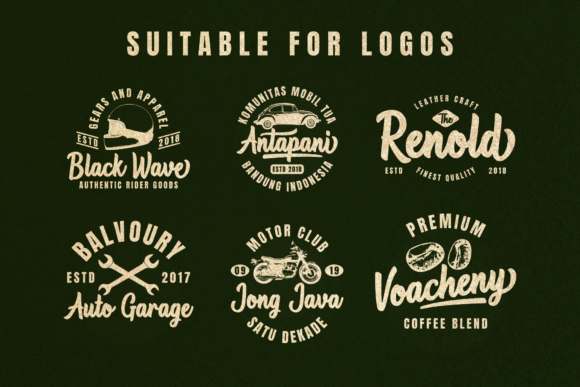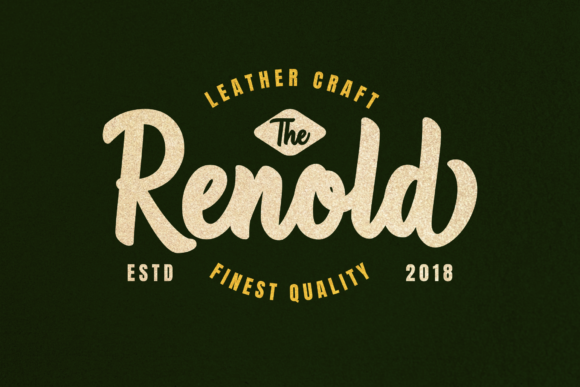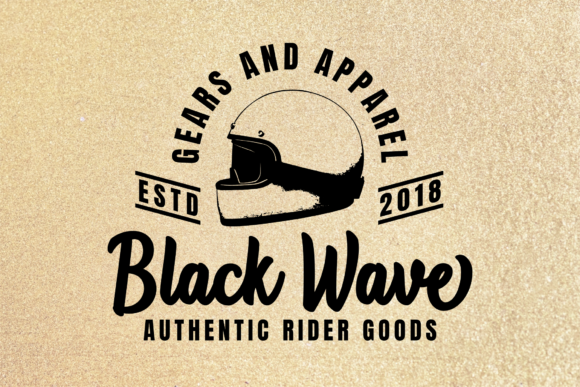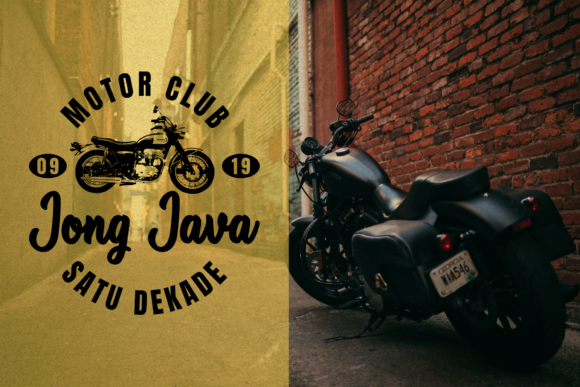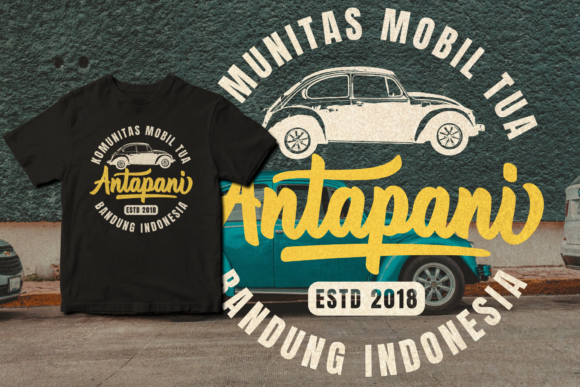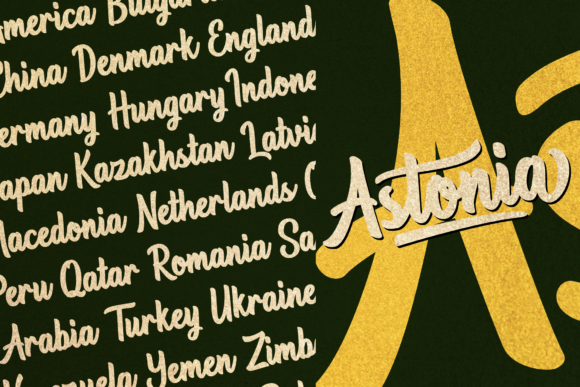
Introducing the Astonia Font: A Bold and Beautiful Script Font
The Astonia Font is a stunning script font that has been making waves in the design community. Its unique blend of strength and elegance makes it perfect for a wide range of design projects, from branding and advertising to crafting and DIY tutorials. In this article, we’ll take a closer look at the Astonia Font, its features, and how you can use it to elevate your designs.
A Strong and Bold Script Font
The Astonia Font is a strong and bold script font that commands attention. Its curved and rounded lines give it a friendly and approachable feel, while its bold weight makes it perfect for headlines and titles. Whether you’re designing a logo, brochure, or social media graphic, the Astonia Font is sure to make a statement.
Unique Vintage Style
One of the standout features of the Astonia Font is its unique vintage style. With its classic curves and rounded edges, it evokes a sense of nostalgia and timelessness. This makes it perfect for designers who want to add a touch of retro flair to their designs. Whether you’re going for a classic, sophisticated look or a more playful, whimsical feel, the Astonia Font is sure to deliver.
Perfect for Branding
The Astonia Font is particularly well-suited for branding projects. Its bold and confident lines make it perfect for logos, while its unique vintage style gives it a distinctive and memorable feel. Whether you’re designing a brand identity for a new business or rebranding an existing one, the Astonia Font is sure to help you create a lasting impression.
So what makes the Astonia Font so special? Here are just a few of its key features and benefits:
- Strong and bold lines: The Astonia Font has a confident and assertive feel that’s perfect for headlines and titles.
- Unique vintage style: Its classic curves and rounded edges give it a distinctive and memorable feel.
- Curved and rounded lines: The Astonia Font has a friendly and approachable feel that’s perfect for a wide range of design projects.
- Perfect for branding: Its bold and confident lines make it perfect for logos and brand identities.
How to Use the Astonia Font
So how can you use the Astonia Font in your designs? Here are a few ideas to get you started:
- Logos and branding: Use the Astonia Font to create a bold and memorable logo that’s sure to make a lasting impression.
- Headlines and titles: The Astonia Font is perfect for headlines and titles, thanks to its strong and bold lines.
- Advertising and marketing: Use the Astonia Font to add a touch of vintage flair to your advertising and marketing materials.
- Crafting and DIY tutorials: The Astonia Font is perfect for crafting and DIY tutorials, thanks to its friendly and approachable feel.
The Astonia Font is a stunning script font that’s perfect for designers and crafters alike. Its unique blend of strength and elegance makes it perfect for a wide range of design projects, from branding and advertising to crafting and DIY tutorials. With its bold and confident lines, unique vintage style, and curved and rounded lines, the Astonia Font is sure to elevate your designs and help you create a lasting impression.